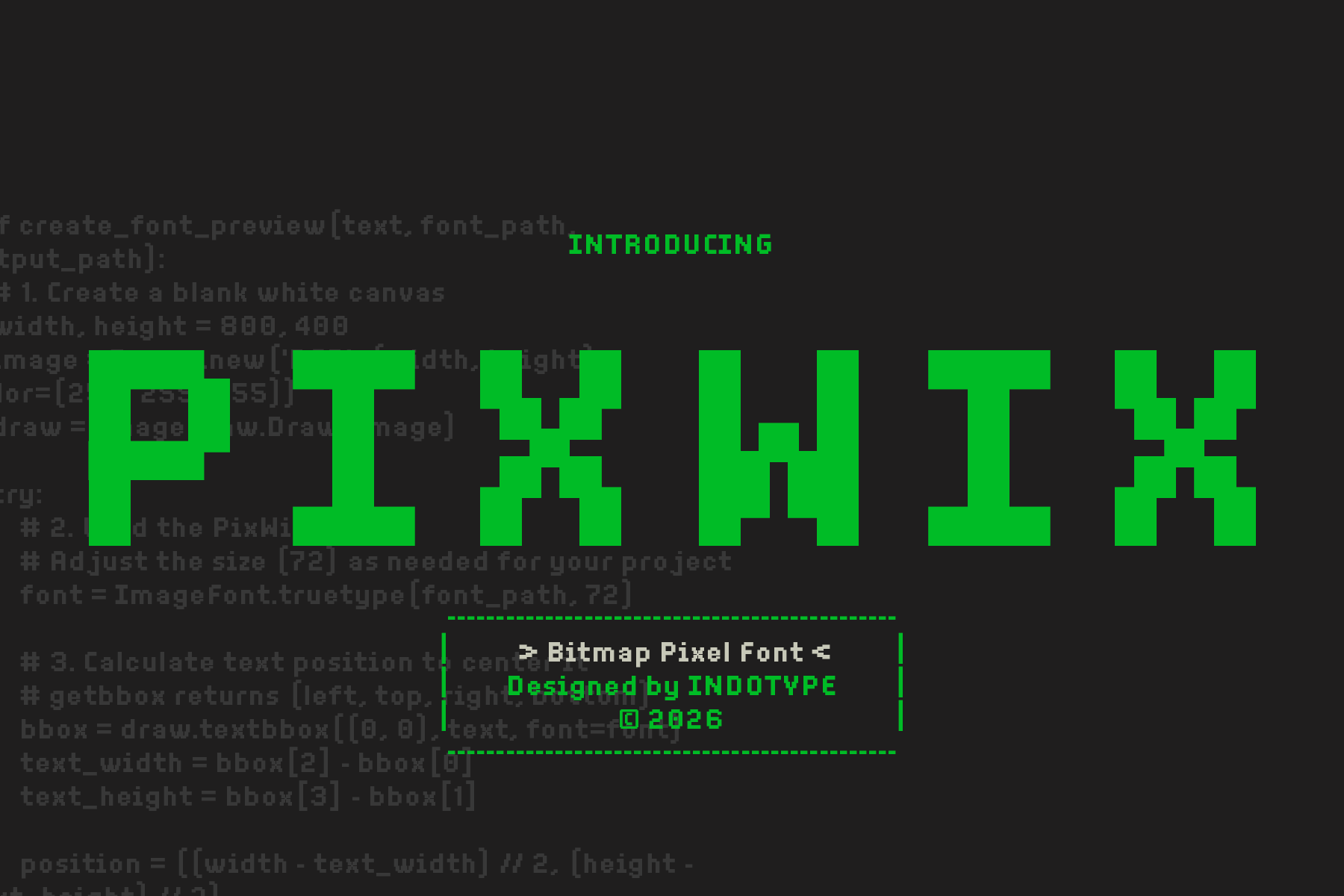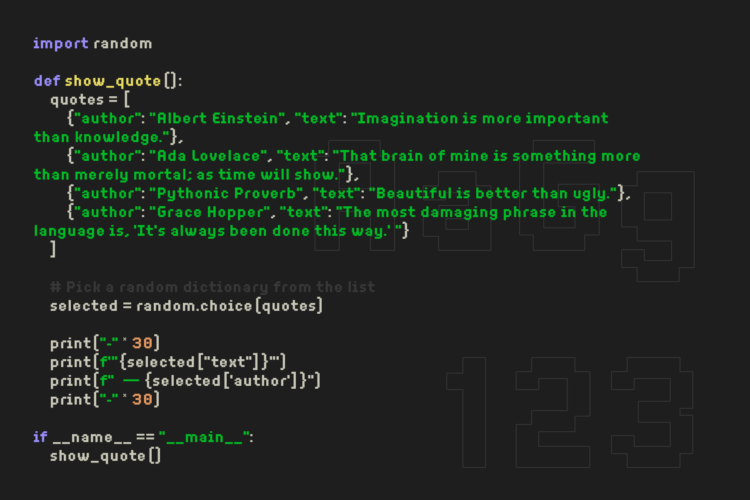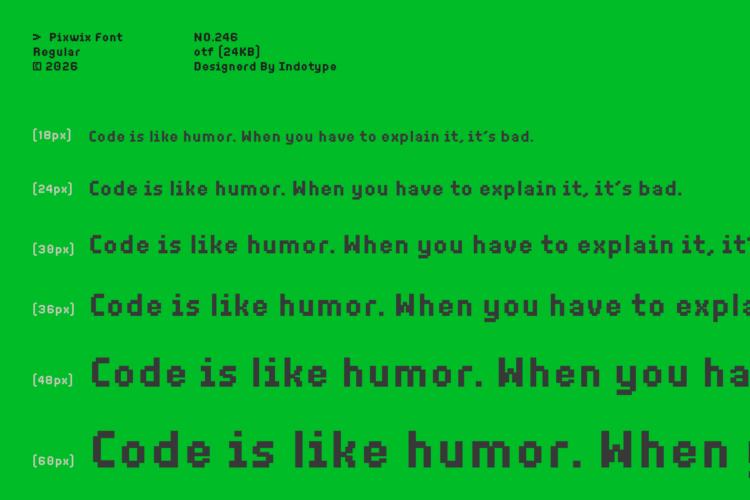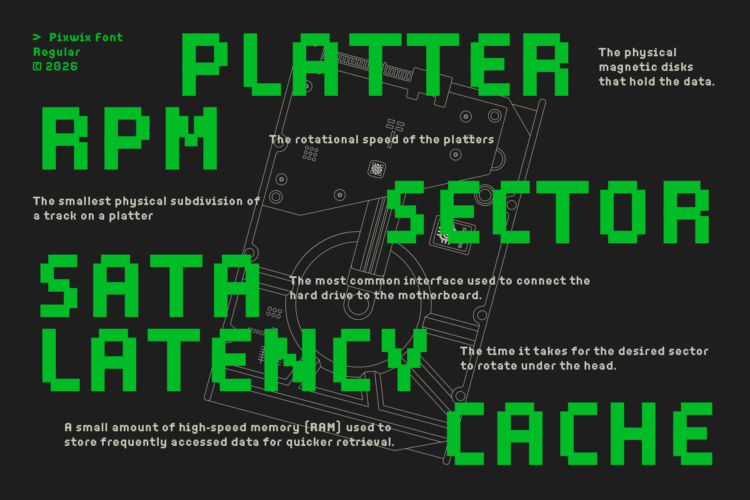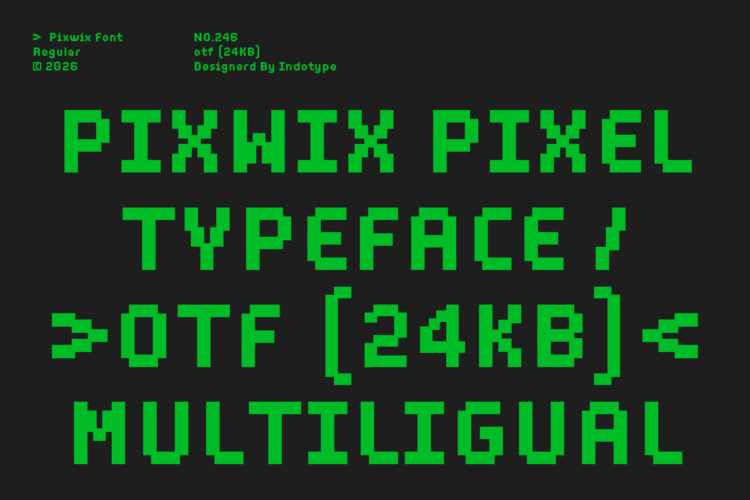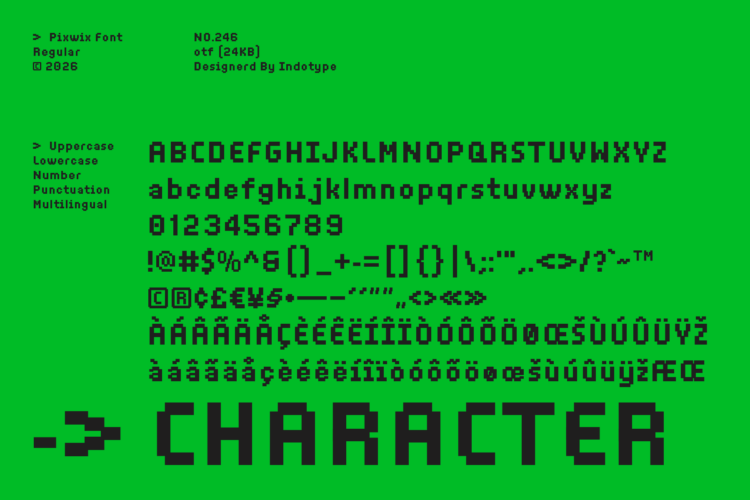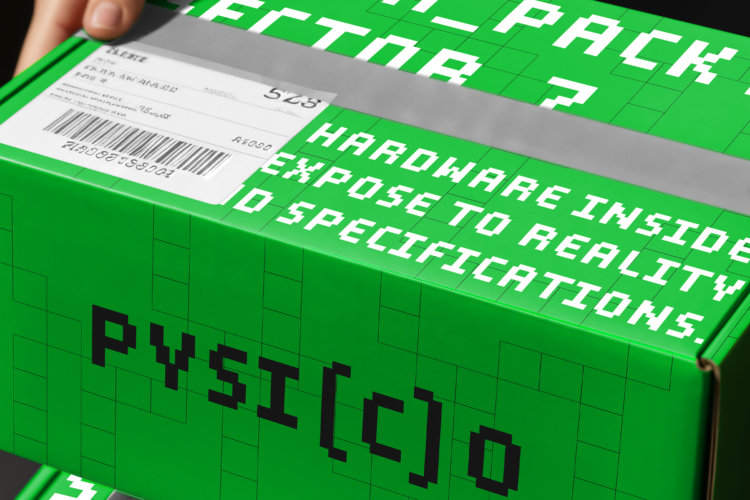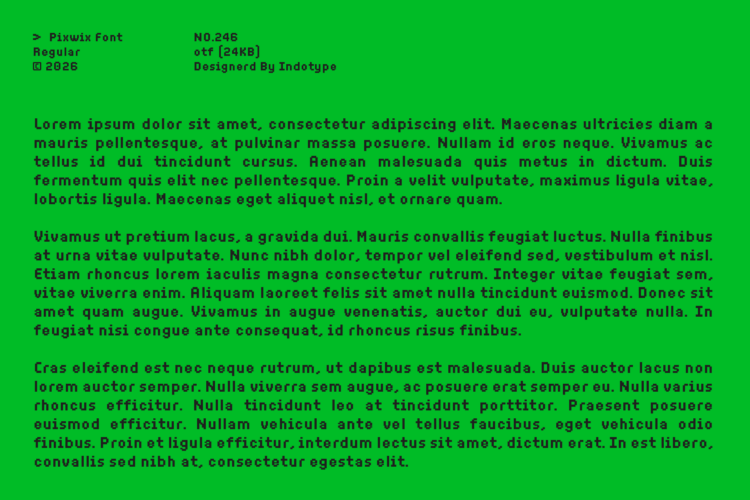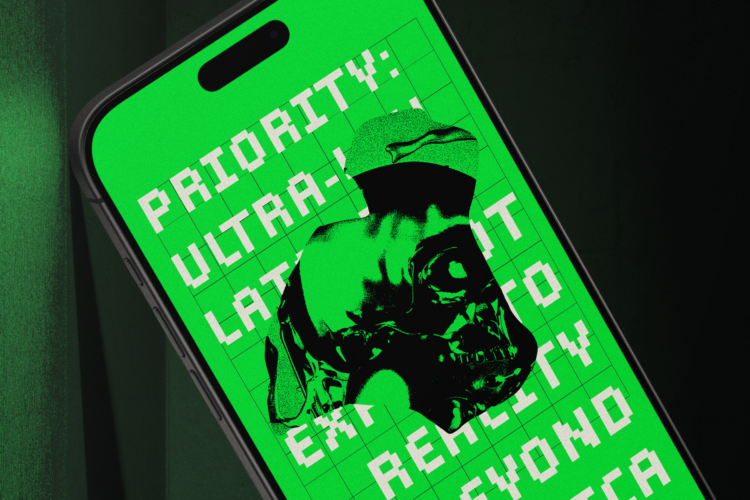
Pixwix is a bitmap pixel font that celebrates the visual language of early digital computing, retro gaming culture, and the aesthetic codes of a technological era that shaped an entire generation’s relationship with screens. Designed by Indotype, Pixwix is constructed entirely from a rigid pixel grid — every letterform built from discrete square units, arranged with deliberate precision to recreate the chunky, block-based character rendering of arcade cabinets, home console displays, and the earliest personal computer interfaces. This is not a font that references pixel aesthetics from a distance; it is genuinely, structurally, and philosophically a pixel font, built the way pixel fonts were always meant to be built — one block at a time.
Pixwix’s letterforms are constructed on a bold, wide pixel grid that prioritizes visual impact and instant legibility at display sizes. The individual pixel units are large and clearly defined, giving each glyph a satisfying geometric density that reads as both nostalgic and graphically contemporary. Unlike more delicate or narrow pixel fonts that can feel decorative or illegible at smaller sizes, Pixwix operates at a weight and scale that ensures strong legibility across a broad range of applications — from large-scale display headlines to game UI labels and digital interface elements.